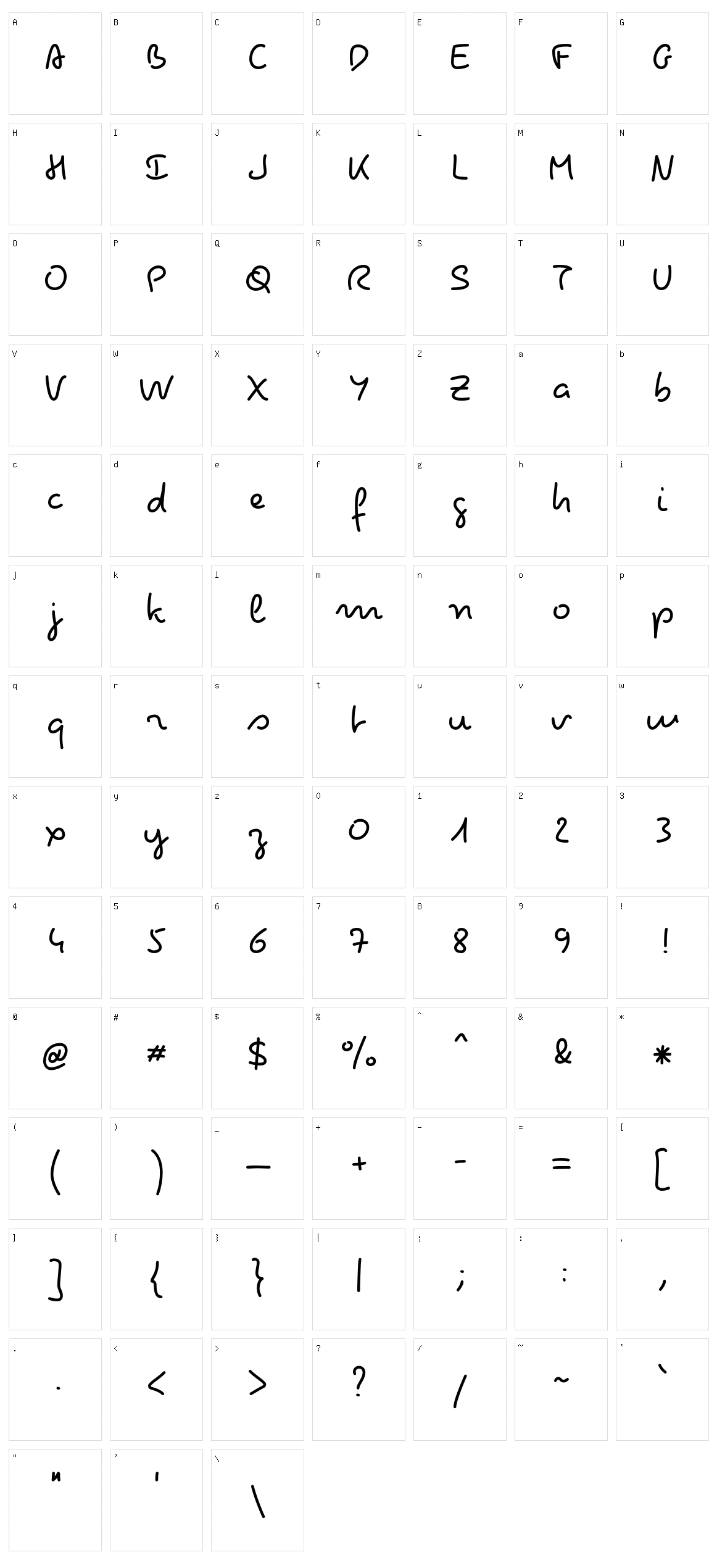
*Title*
OpenType hand-written font whose letters are connected
*Description*
Pecita is a hand-written font that give a natural rendition.
It includes all of the full Language support for Afrikaans, Archaic
Greek Letters, Baltic, Basic Cyrillic, Basic Greek, Basic Latin, Catalan,
Central European, Chess Symbols, Dutch, Euro, Hebbar Tamil, Igbo Onwu,
IPA, Latin Ligatures, Mathematical Operators, Pan African Latin, Pinyin,
Polytonic Greek, Romanian, Turkish, Vietnamese, Western European.
It implements the OpenType features Localized form substitution,
Superscript , Subscript, Small capitals, Standard ligatures,
Glyph decomposition and Contextual alternates.